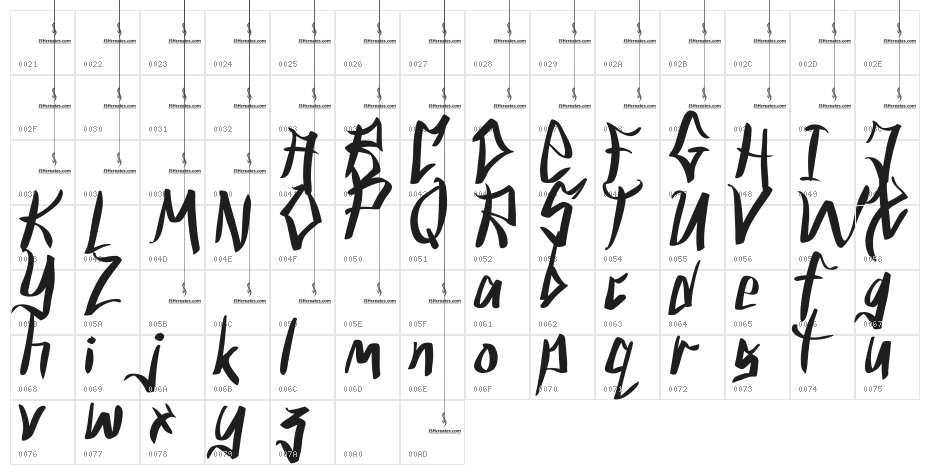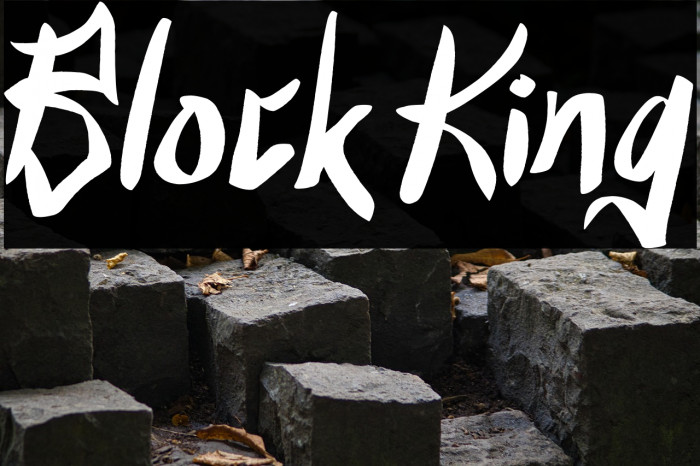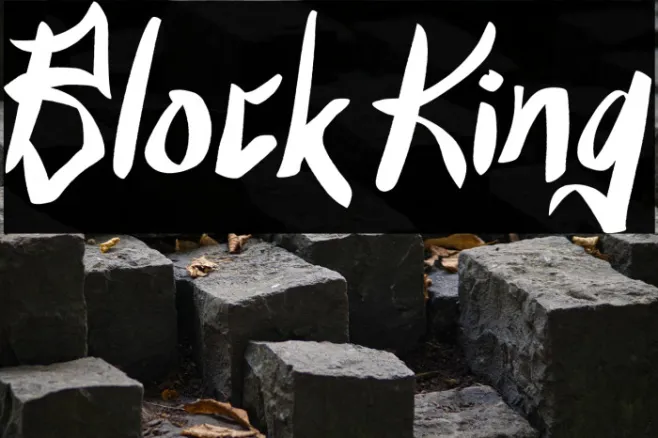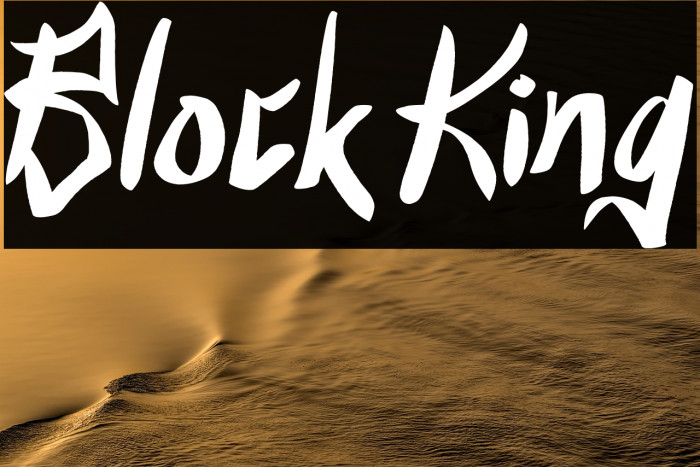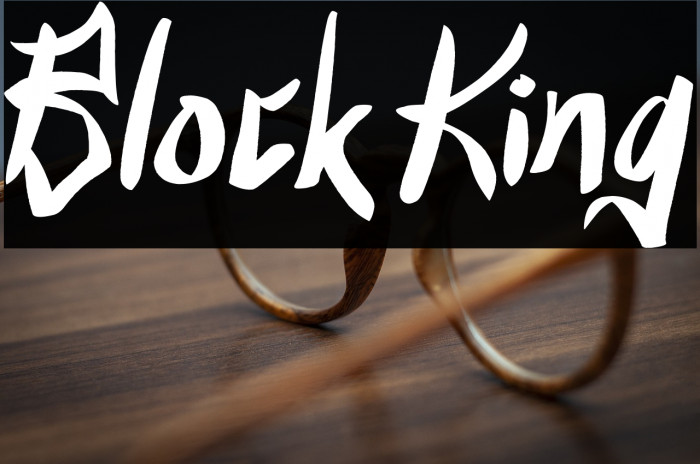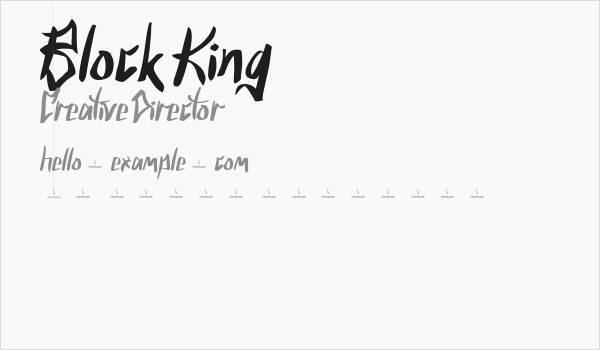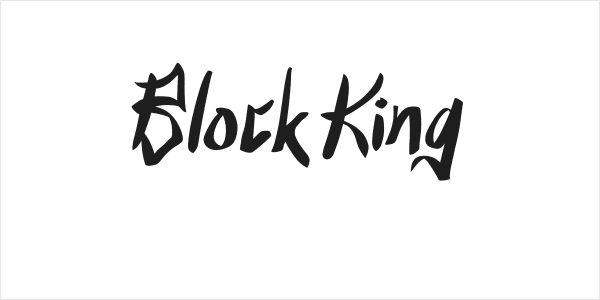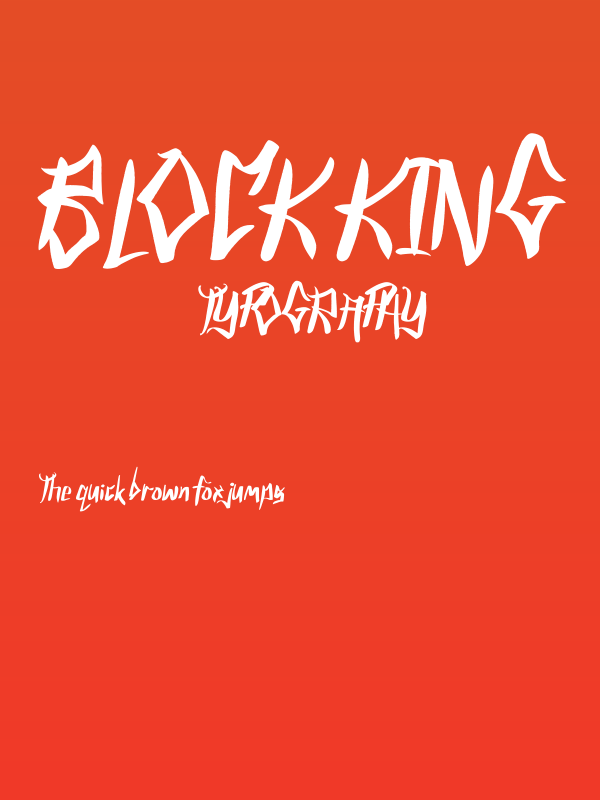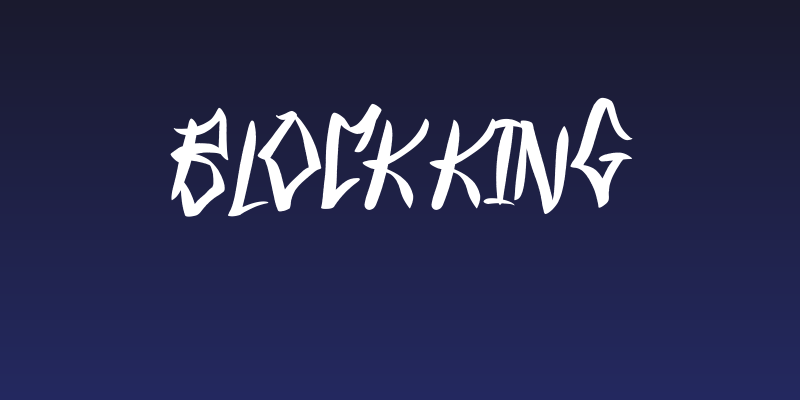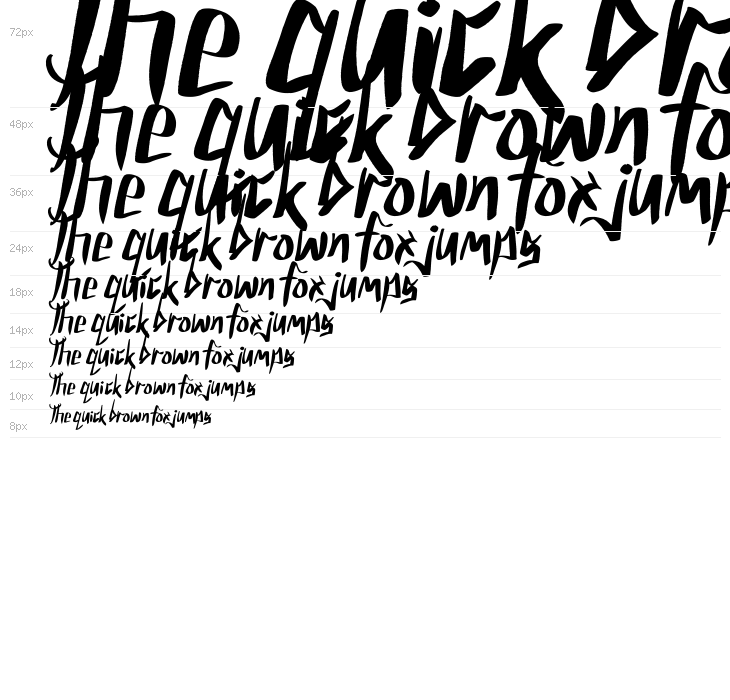
Block King Font
Block King Description
This font exhibits a bold, expressive style with a handwritten appearance. The characters are dynamic and fluid, featuring sharp angles and varying stroke widths that create a sense of movement and energy. The uppercase and lowercase letters maintain a consistent style, with exaggerated curves and unique forms that give the font a distinctive personality. The numbers and special characters follow the same expressive design, making the font versatile for creative projects. Its artistic flair makes it suitable for attention-grabbing headlines or branding that requires a strong visual impact.
| Proposed Projects | Ideal for creative branding, artistic posters, and eye-catching headlines. |